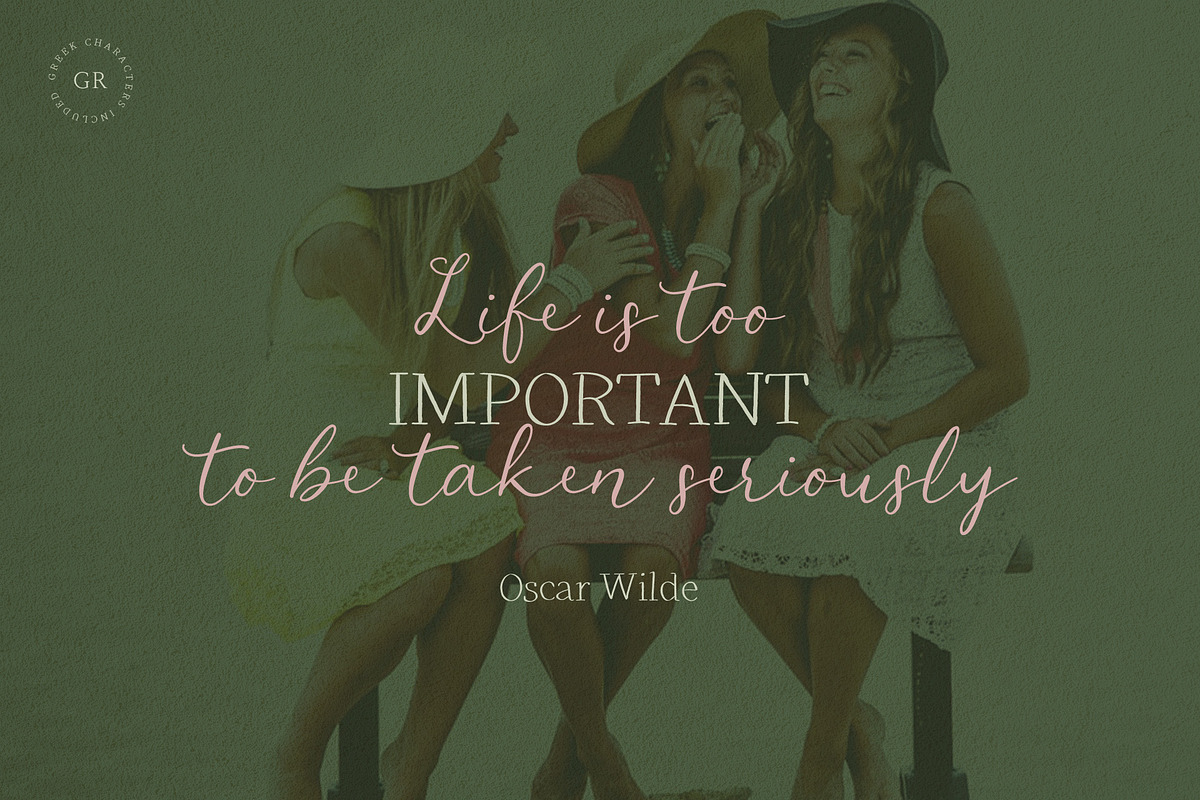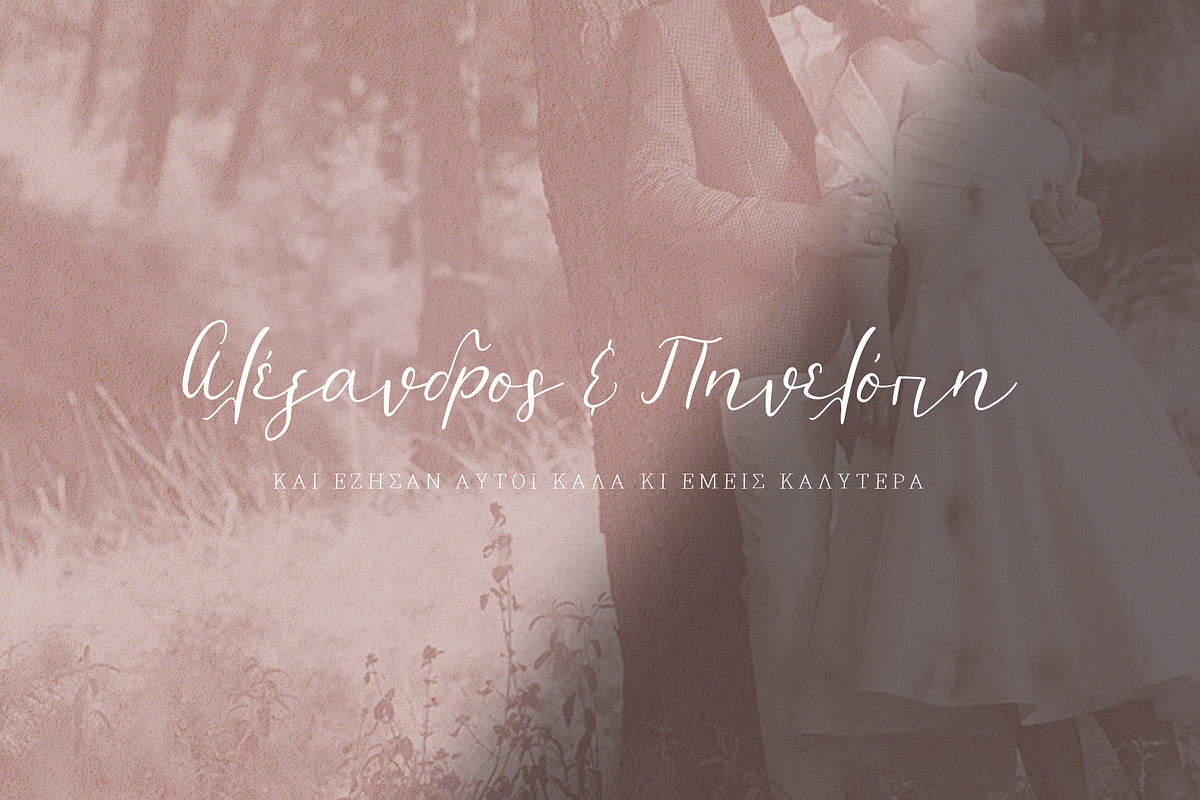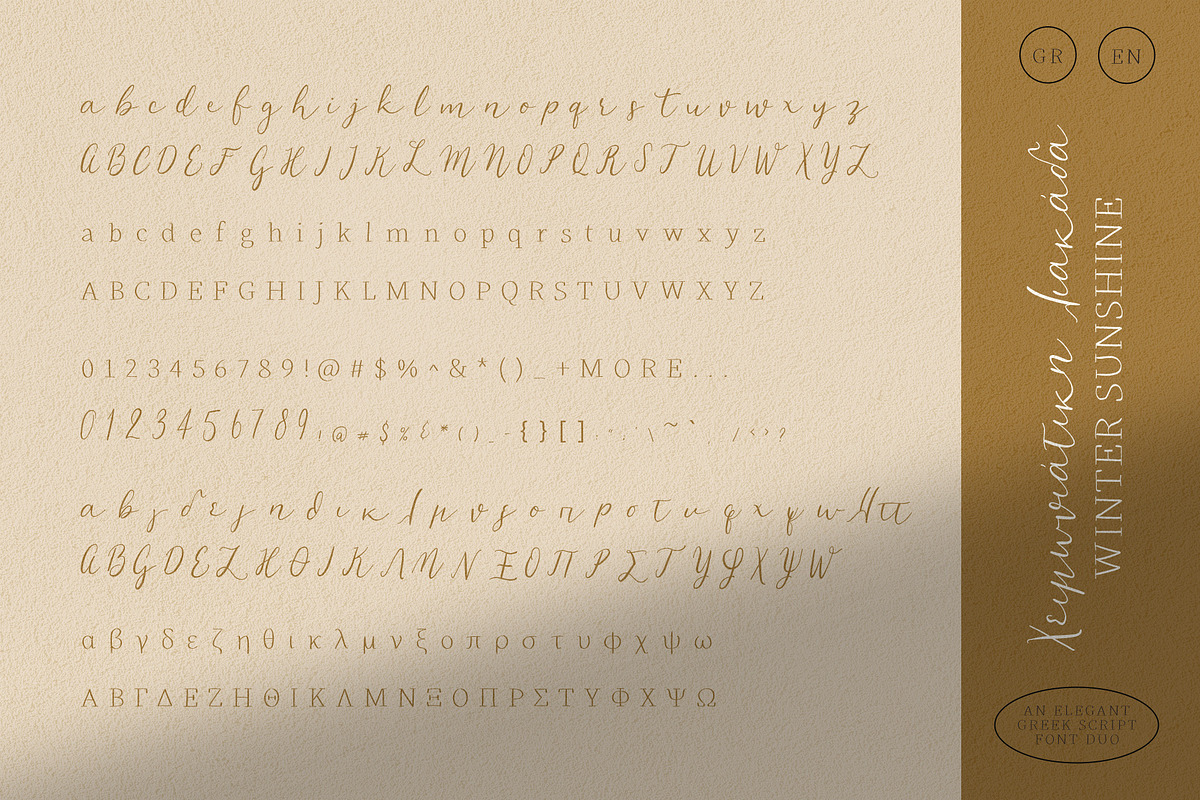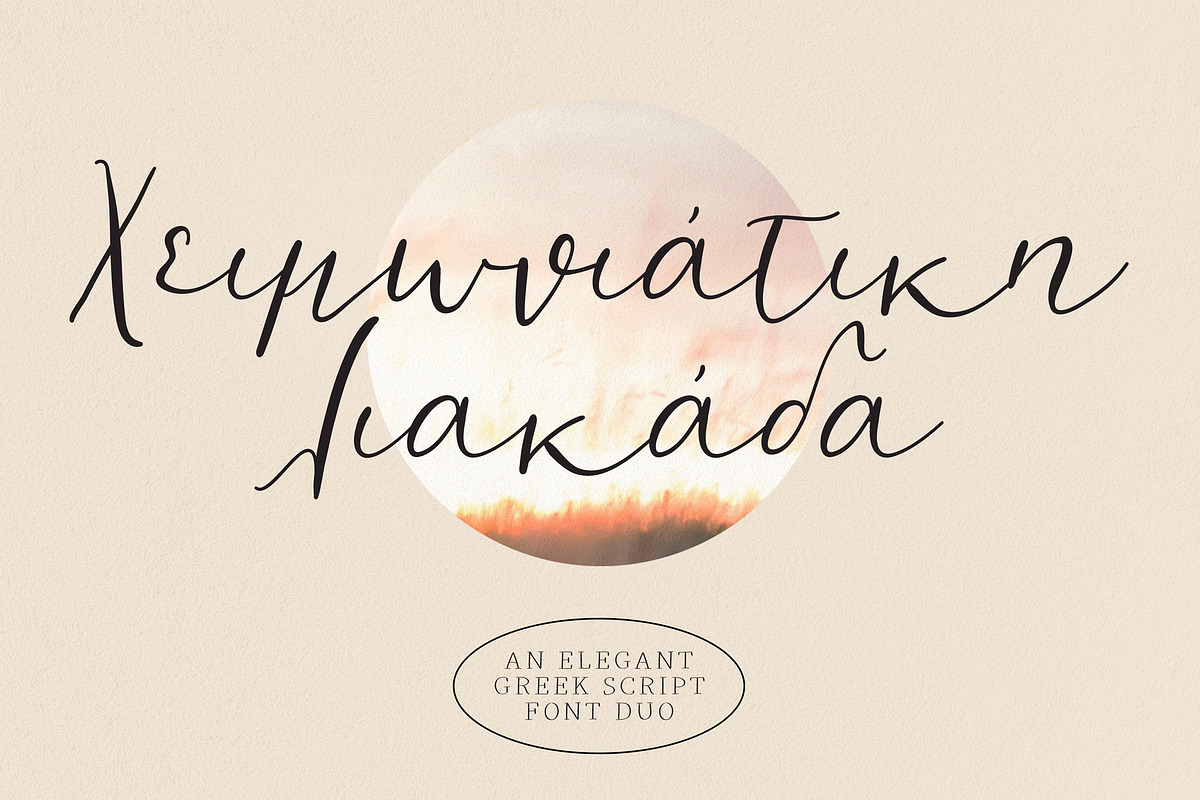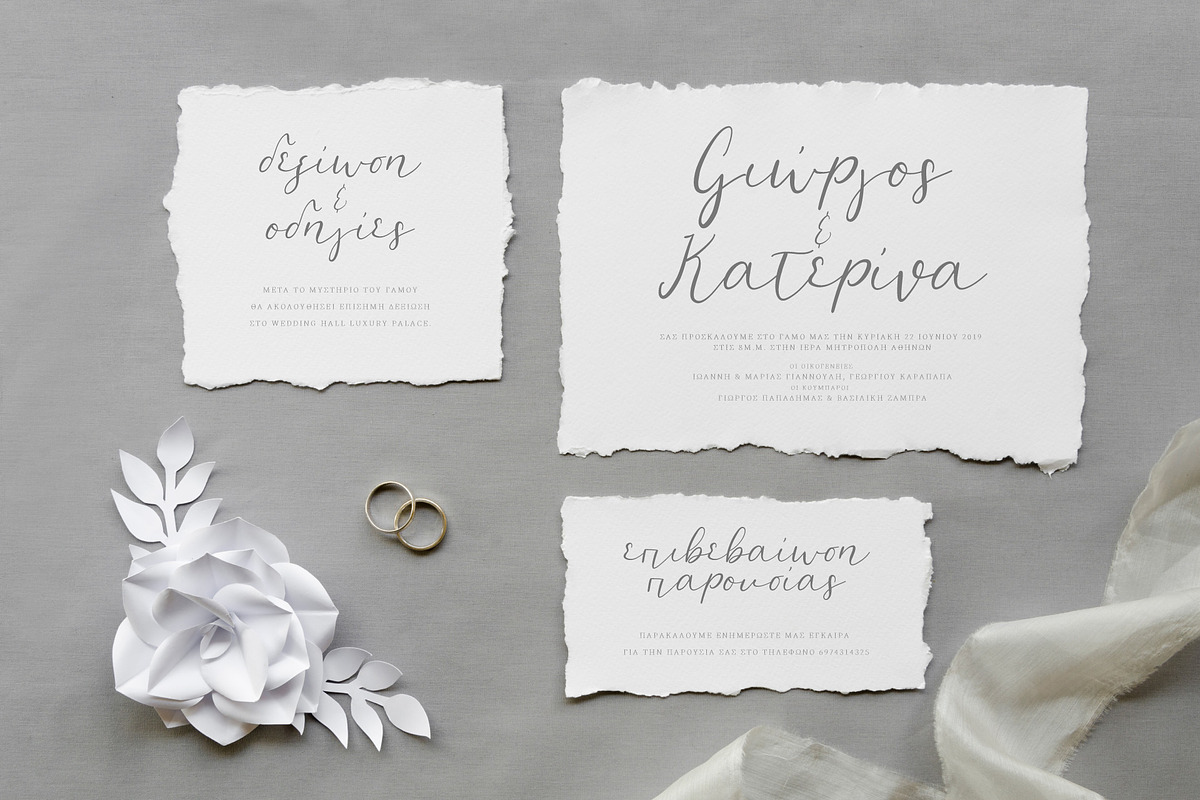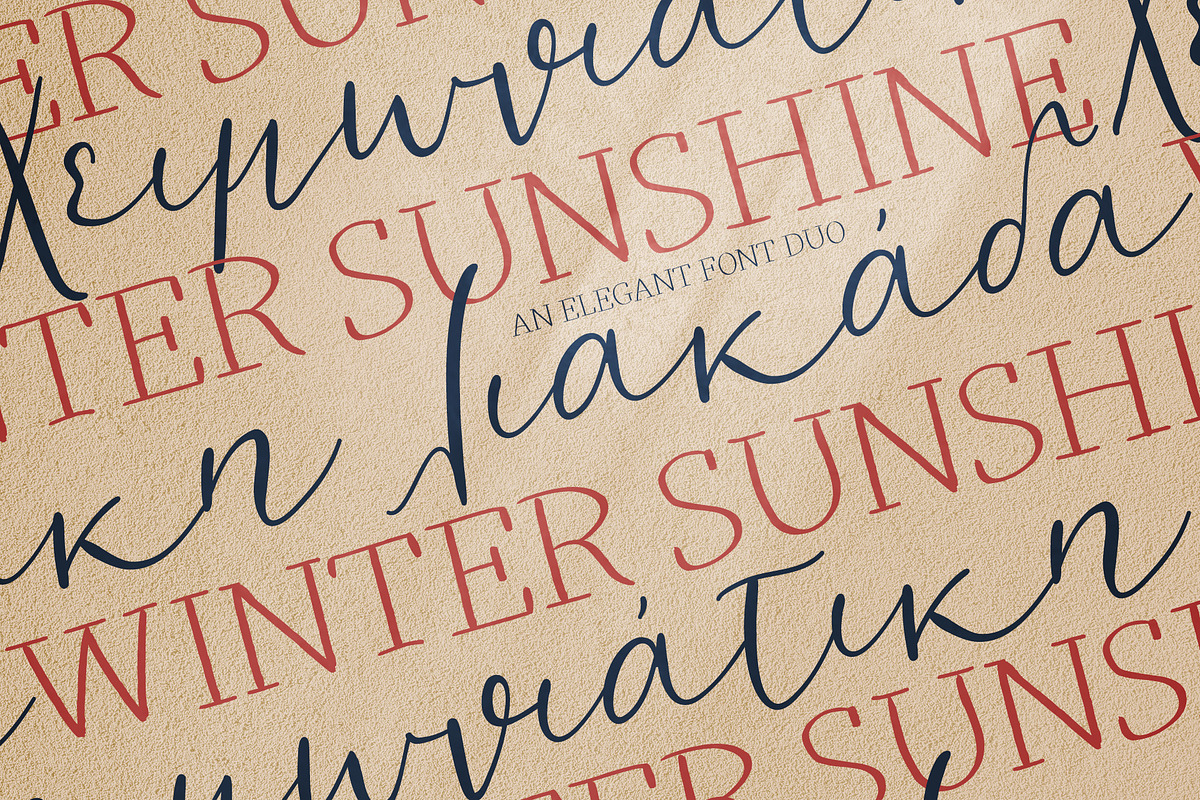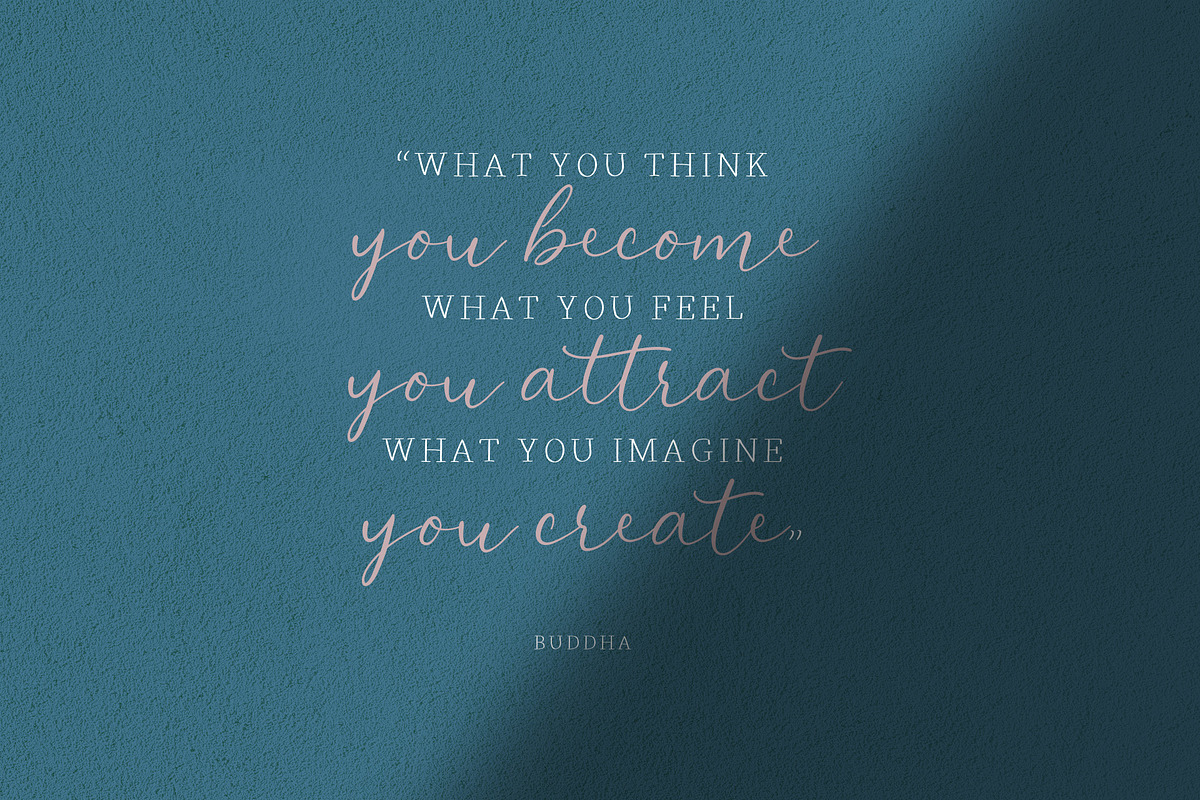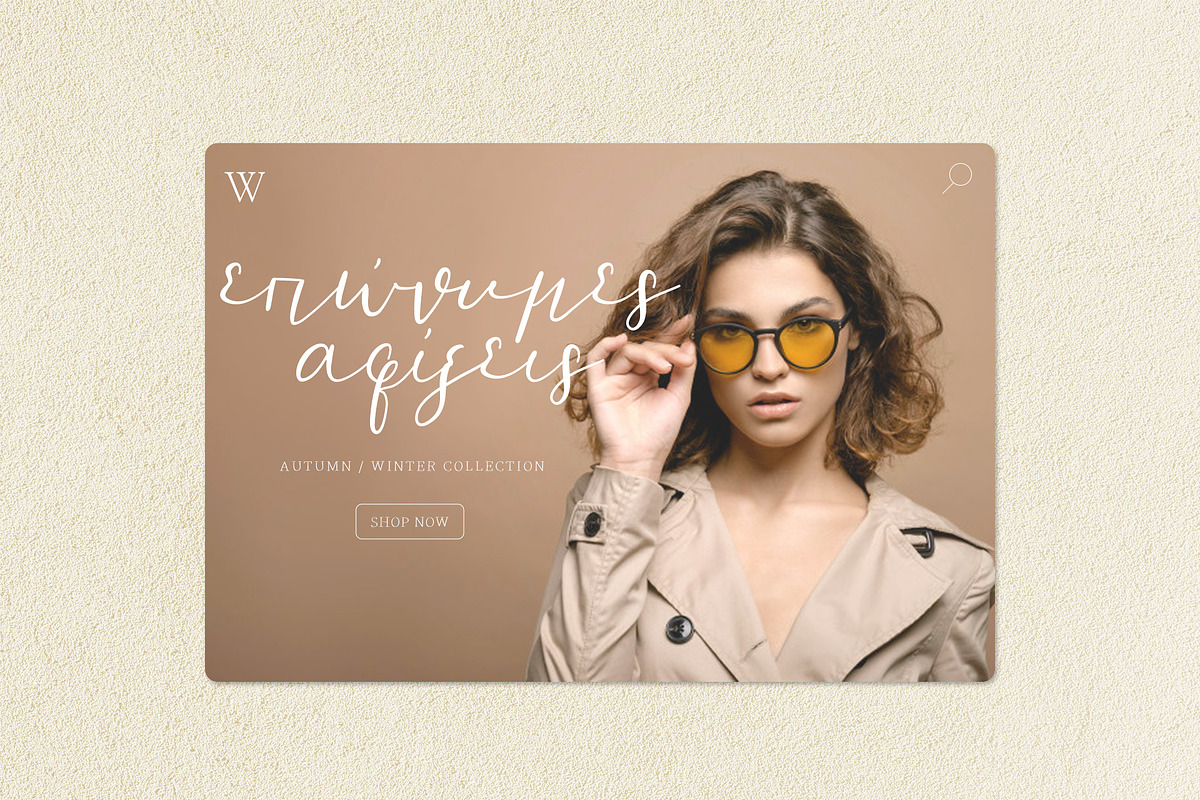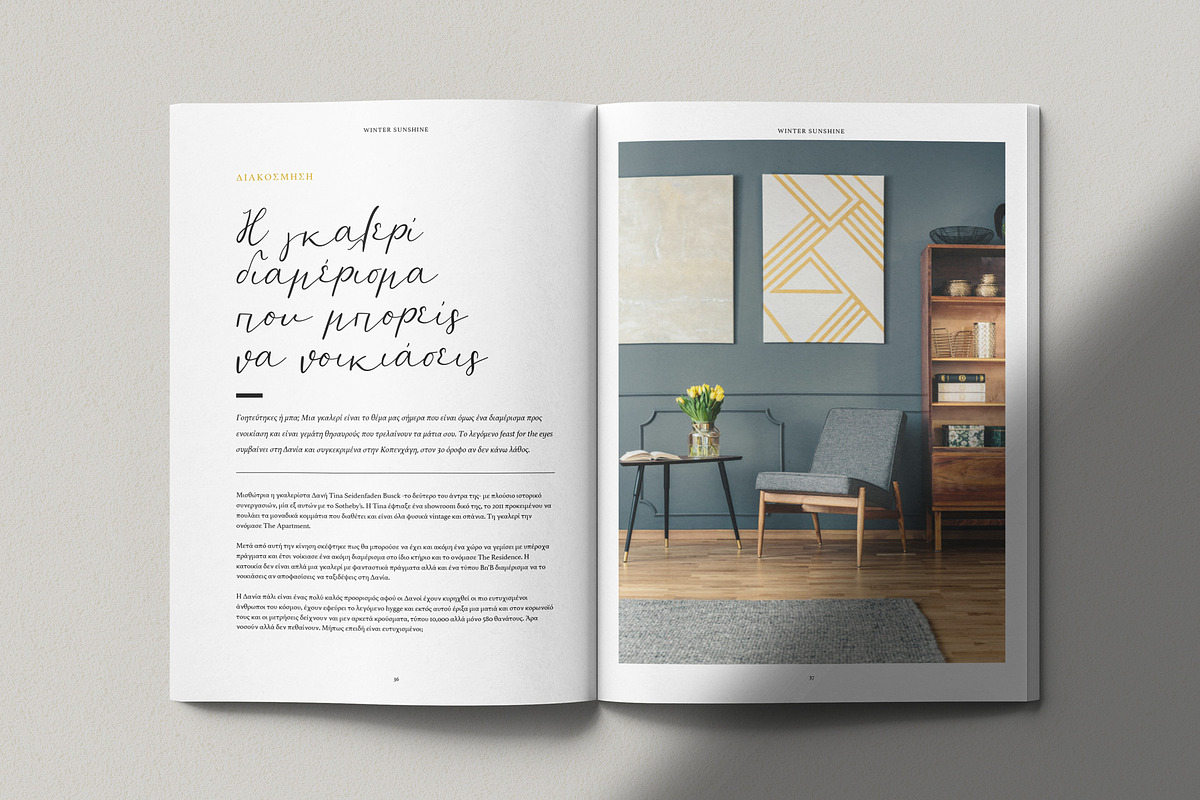
Xeimoniatiki Liakada font duo
Say yiasou (hello!) to Xeimoniatiki liakada, an elegant font duo created to pair together or use them independently in order to make great designs such as wedding invitations, social media quotes, banners, editorials and the list goes on.
I have a big respect for Greek novelist Alkyoni Papadaki and all of her books, for the unique style of her writings. I found a lot of inspiration for this font duo that actually takes the title from one of her books and make it something visual. The title in English means winter sunshine!
Xeimoniatiki liakada script A beautiful modern script calligraphy font with Greek & English characters included as well. The font uses uppercase & lowercase plus some standard ligatures.
Xeimoniatiki liakada serif An elegant handcrafted imperfect serif font with Greek & English characters as well. The font uses uppercase & lowercase letters.